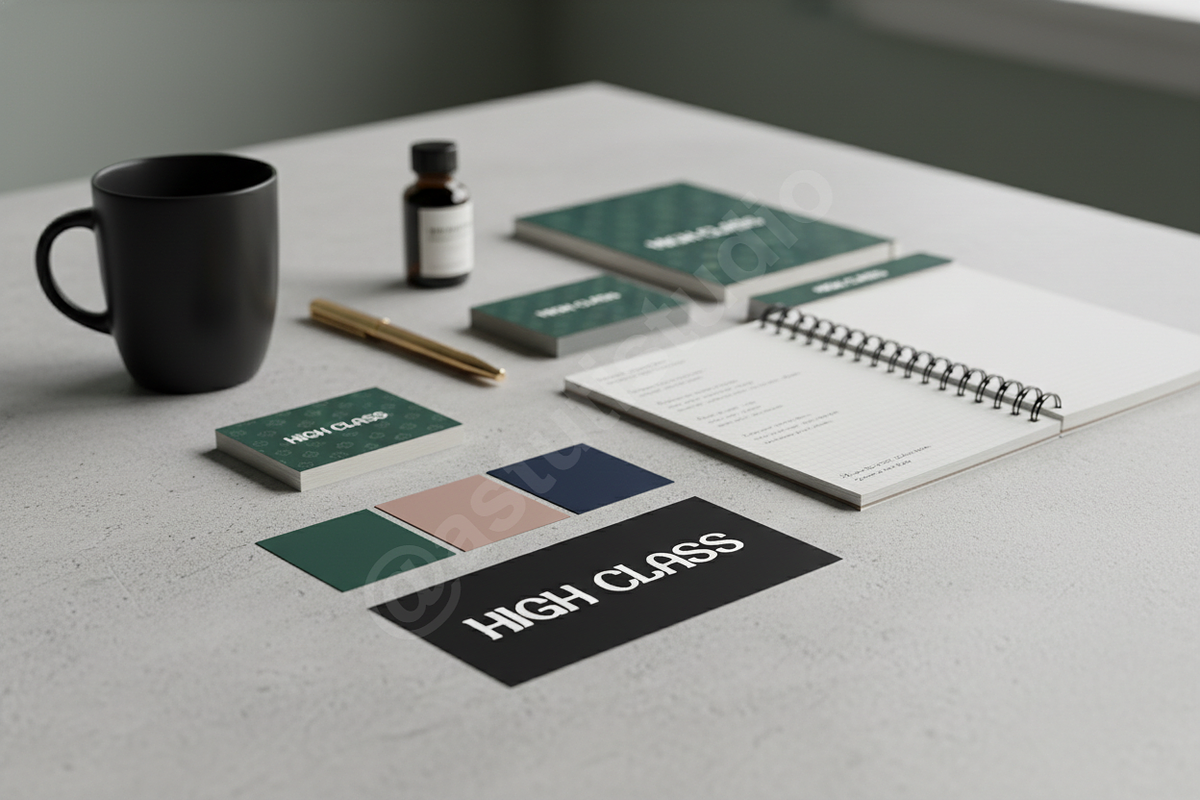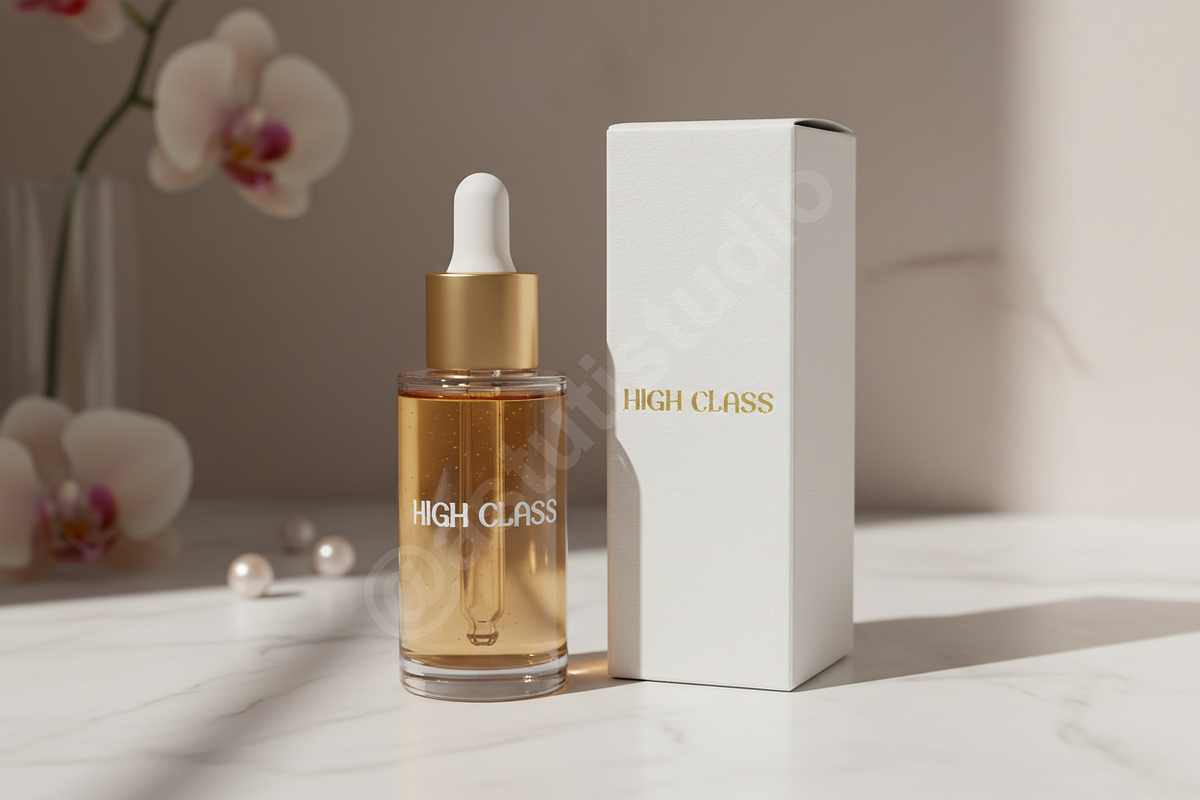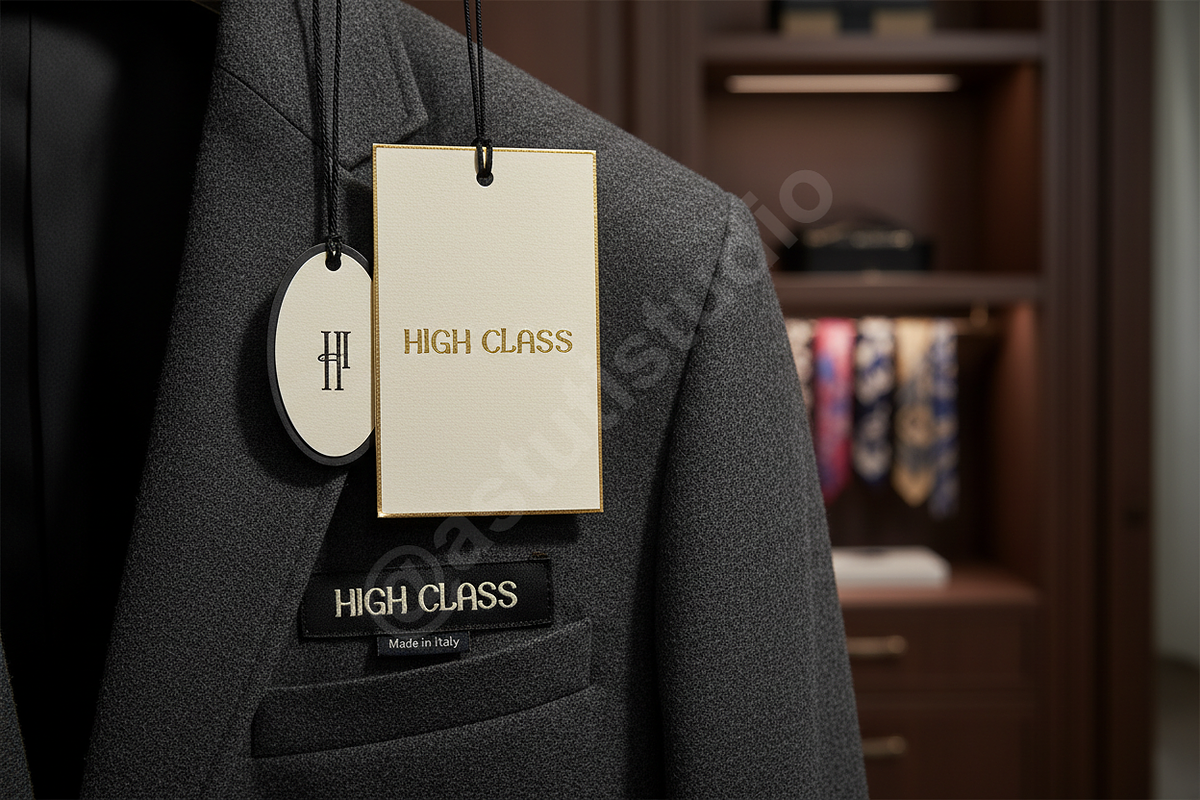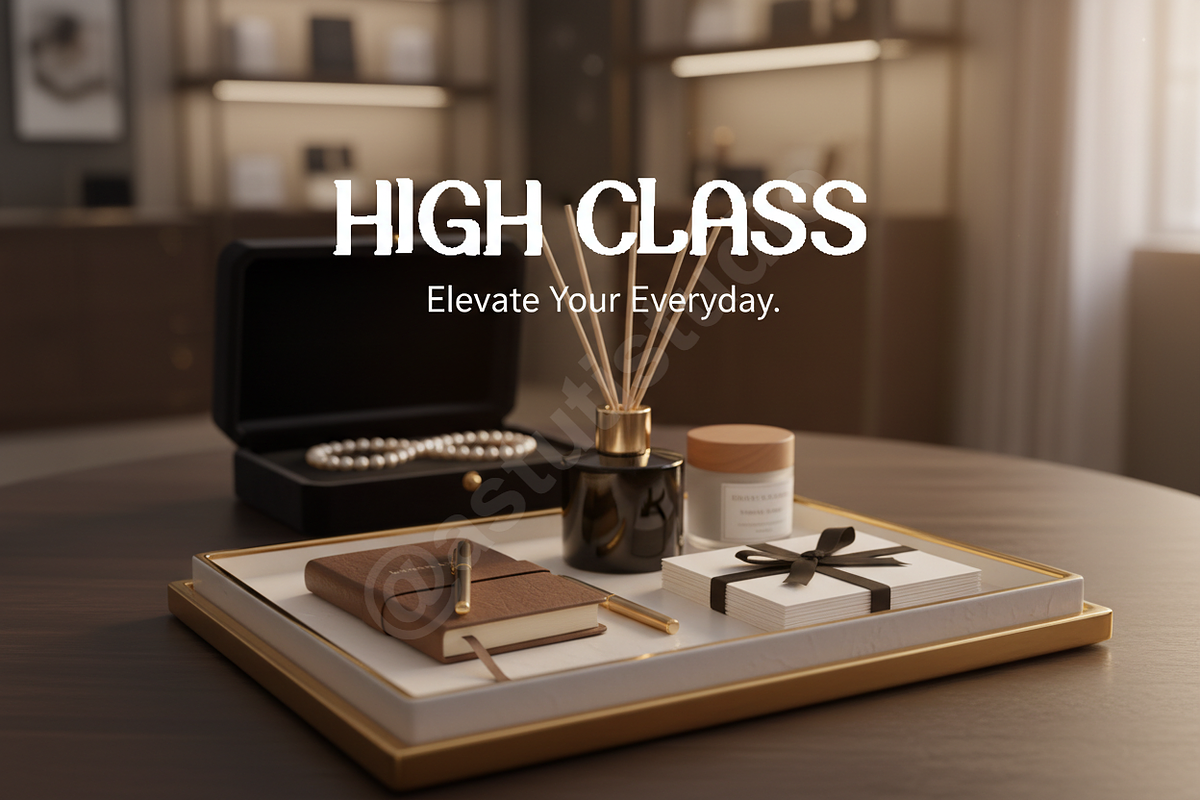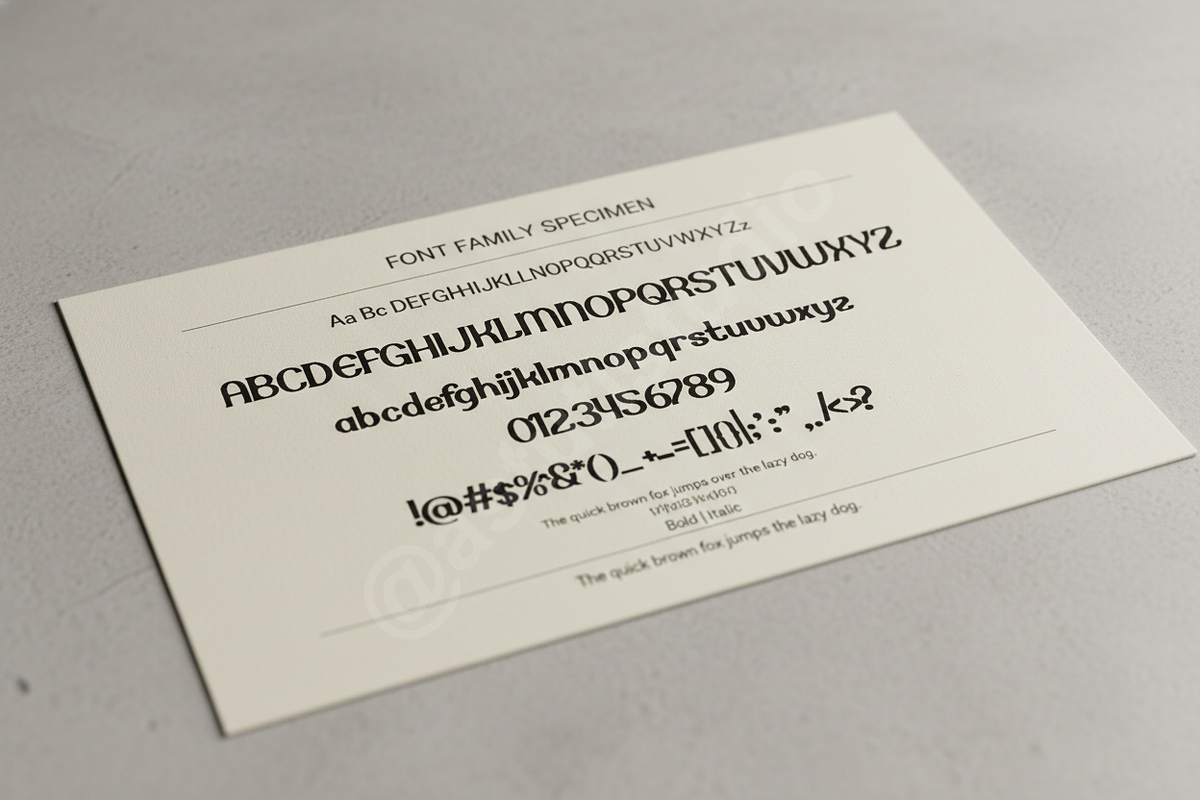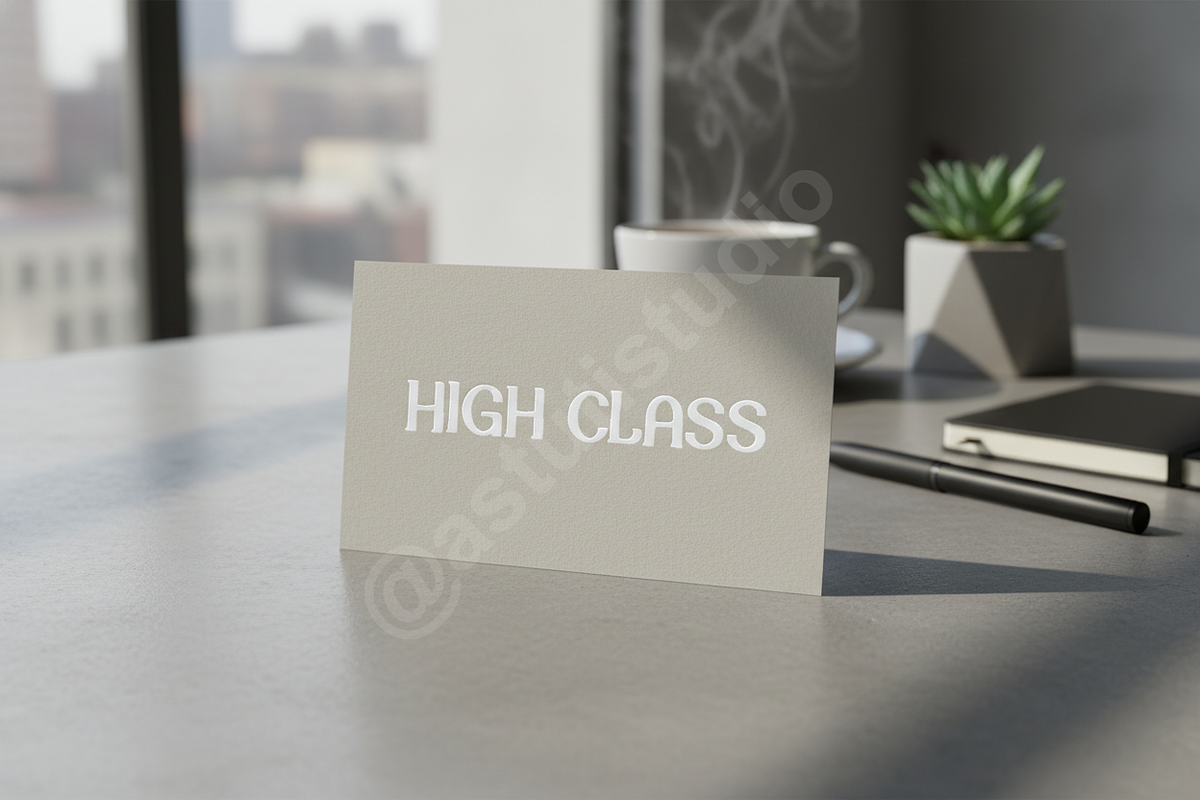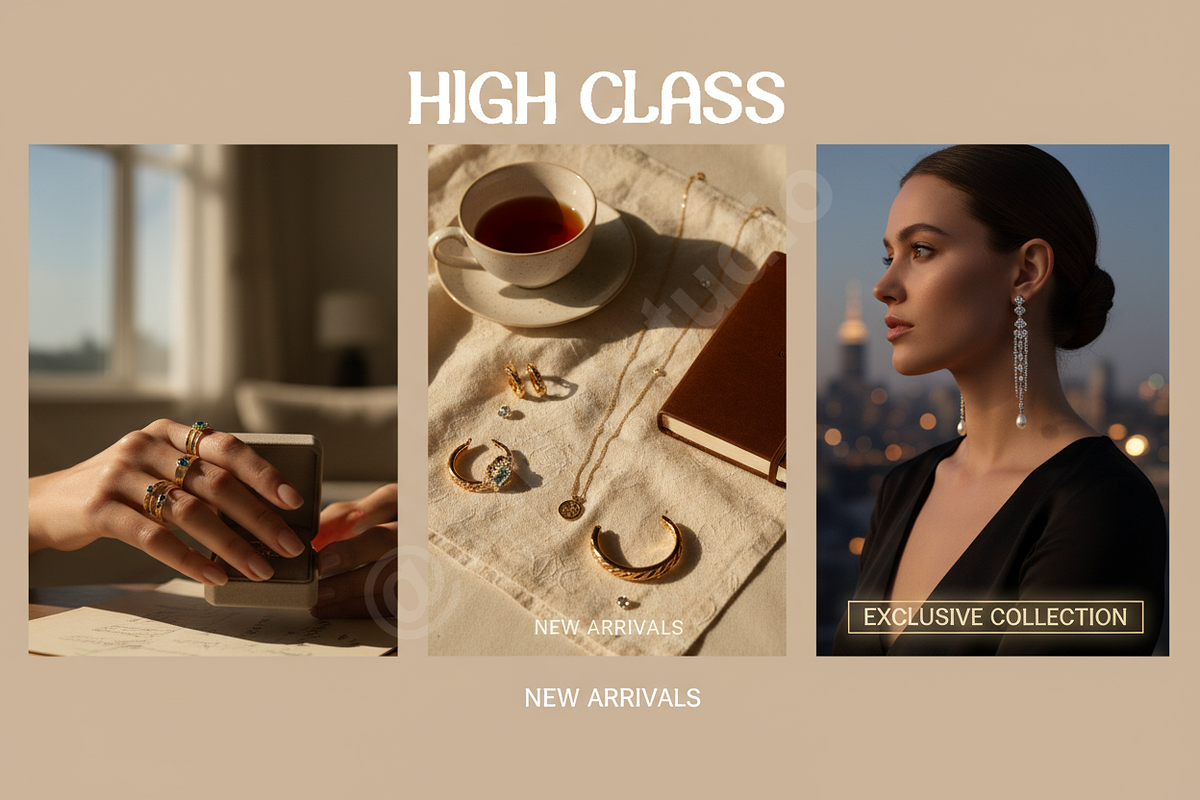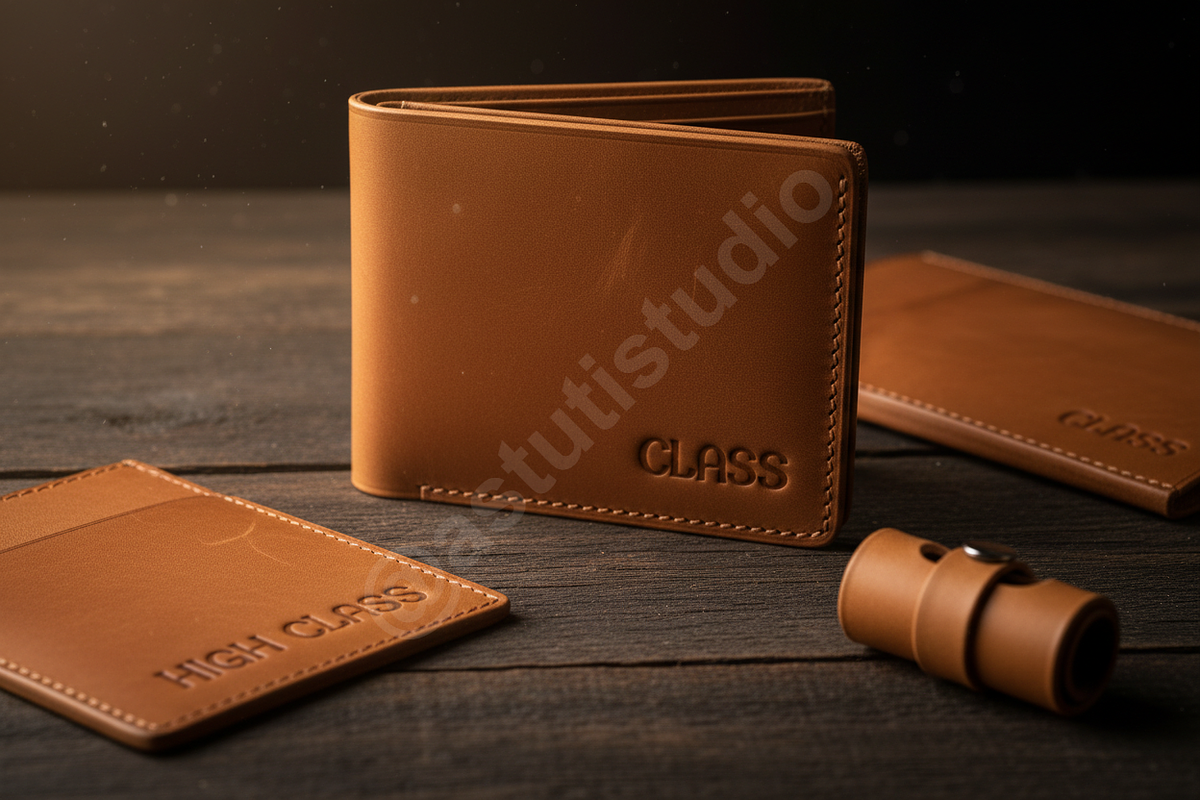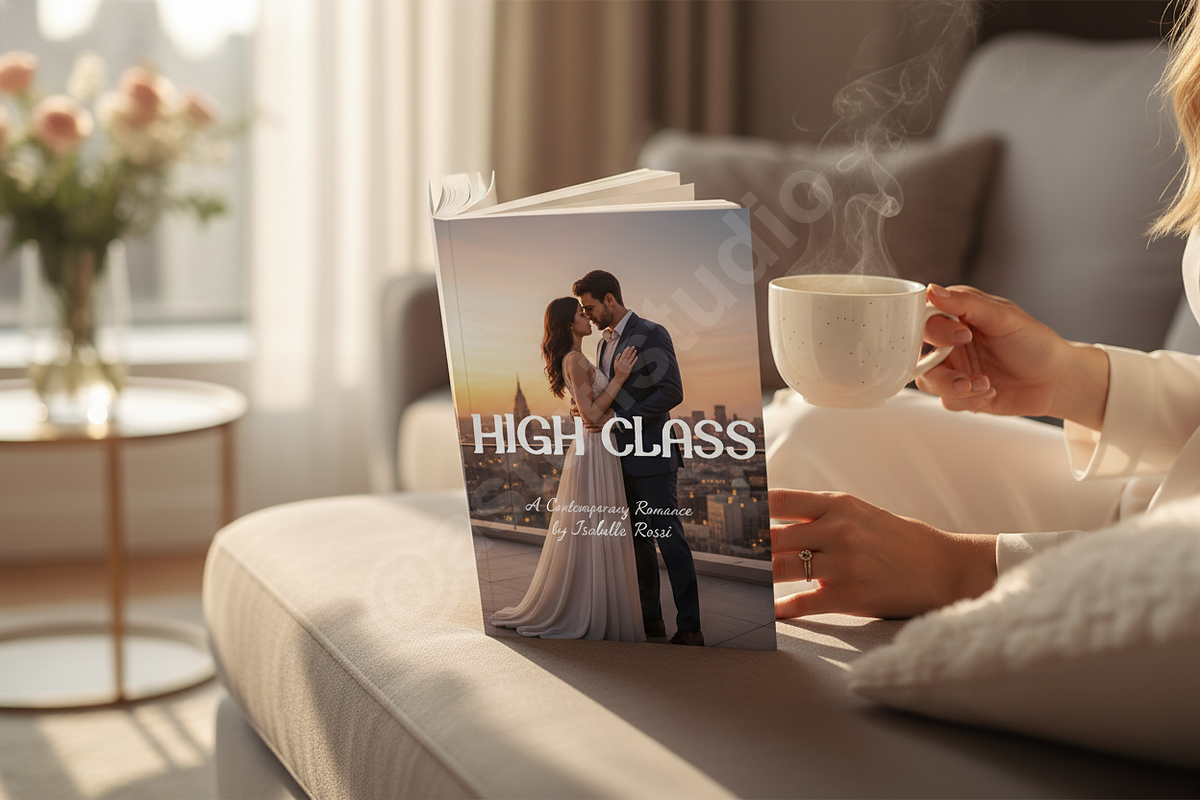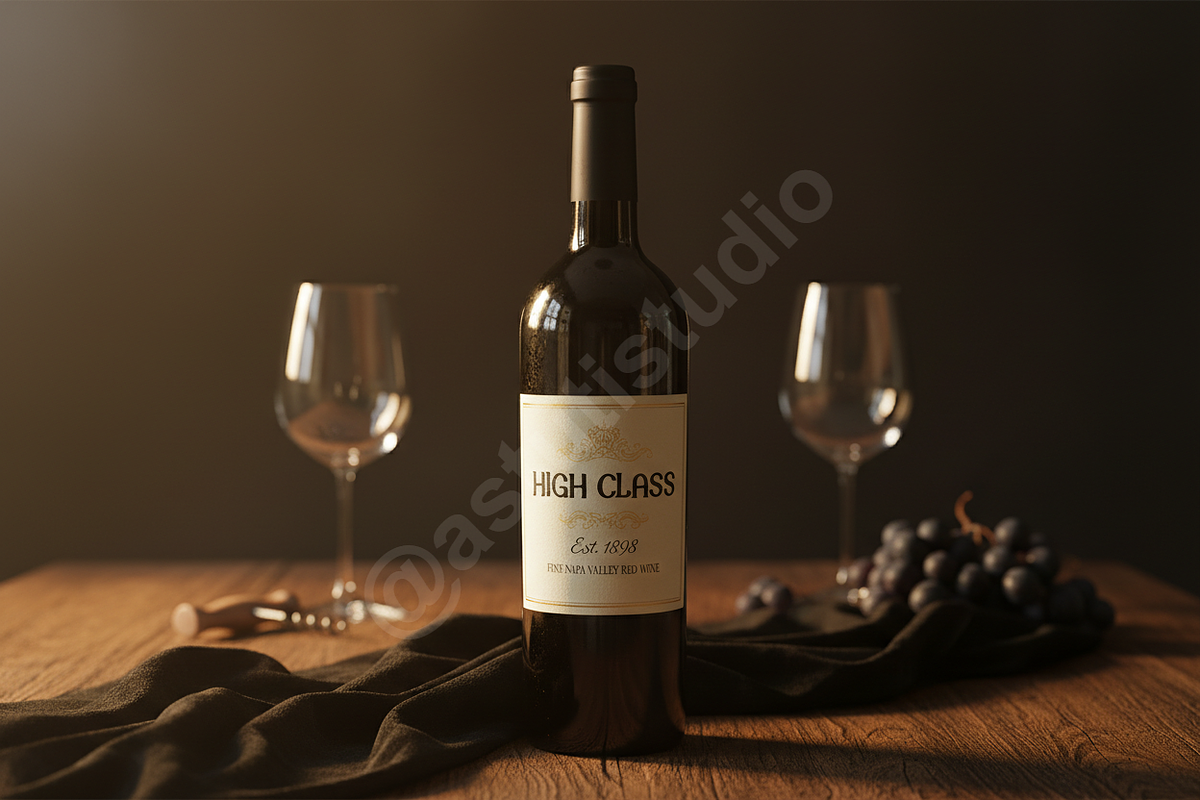
Fexo - Modern Luxury Sans Serif Font
Fexo is an exquisite modern sans-serif font designed for unparalleled sophistication and elegance. Perfect for elevating luxury branding, creating captivating editorial layouts, and crafting scroll-stopping social media graphics, Fexo brings a refined touch to every design endeavor. Its clean lines and balanced proportions embody a contemporary style, making it the ideal choice for projects demanding a premium aesthetic and a lasting impression.
- Elegant Sans-Serif Design: A timeless aesthetic with a modern, minimalist twist.
- Exceptional Legibility: Optimized for both large display text and small body copy across various media.
- Multilingual Support: Extensive character set to ensure broad language coverage for global projects.